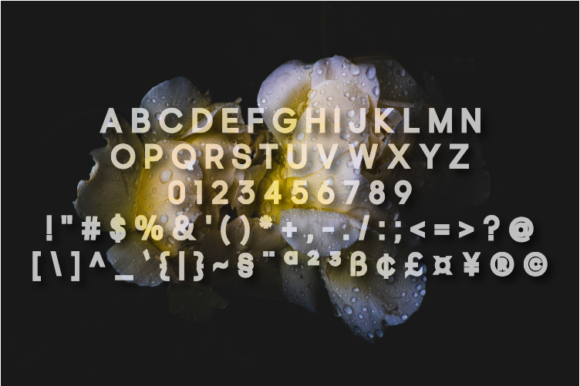
Blevin Font: Elevate Your Designs with a Modern Sans Serif
In the world of typography, fonts play a crucial role in conveying messages, expressing emotions, and creating visual identities. For designers and crafters, finding the perfect font can be a daunting task, especially when it comes to creating stunning visual effects. This is where Blevin Font comes into play – a modern sans serif font that has been making waves in the design community. With its neat and beautiful arrangement of letters, Blevin is a versatile typeface that can elevate both formal and non-formal designs.
The Birth of Blevin Font
Blevin Font is a relatively new addition to the typography world, designed to cater to the needs of modern designers. Its creation was inspired by the need for a clean, elegant, and highly legible font that can be used across various platforms. The font’s design team aimed to create a typeface that would be perfect for branding, advertising, packaging, and digital media. And, with Blevin, they have successfully achieved their goal.
Key Features of Blevin Font
So, what makes Blevin Font stand out from the rest? Here are some of its key features:
- Modern Sans Serif Design: Blevin boasts a sleek and contemporary sans serif design, making it perfect for modern brands and designs.
- Neat and Beautiful Arrangement of Letters: The font features a carefully crafted arrangement of letters, ensuring optimal legibility and aesthetics.
- Highly Legible: Blevin’s clear and concise lettering makes it easy to read, even at small font sizes.
- Versatile: This typeface can be used in a wide range of design applications, from formal documents to creative projects.
Use Cases for Blevin Font
Blevin Font is an incredibly versatile typeface, making it suitable for various design projects. Here are some use cases:
- Branding and Logo Design: Create a lasting impression with Blevin’s clean and modern design.
- Advertising and Marketing Materials: Use Blevin to create eye-catching ads, brochures, and flyers that grab attention.
- Packaging Design: Add a touch of sophistication to your product packaging with Blevin’s elegant design.
- Digital Media: Blevin is perfect for digital platforms, including websites, social media, and mobile apps.
Benefits of Using Blevin Font
By incorporating Blevin Font into your designs, you can enjoy several benefits:
- Enhanced Readability: Blevin’s clear and concise lettering ensures that your message is conveyed effectively.
- Professional Look and Feel: The font’s modern design gives your designs a professional and polished look.
- Flexibility: Use Blevin across various design applications, from print to digital media.
- Unique Identity: Stand out from the crowd with Blevin’s distinctive and elegant design.
In conclusion, Blevin Font is a modern sans serif font that has been designed to elevate your designs. With its neat and beautiful arrangement of letters, this typeface is perfect for both formal and non-formal designs. Its versatility, legibility, and aesthetic appeal make it an excellent choice for designers and crafters. Whether you’re working on branding, advertising, packaging, or digital media, Blevin Font is sure to make a lasting impression.